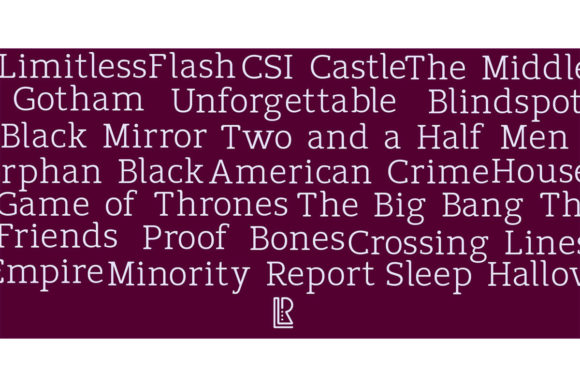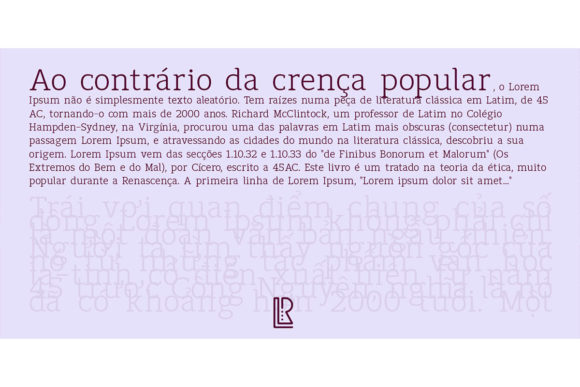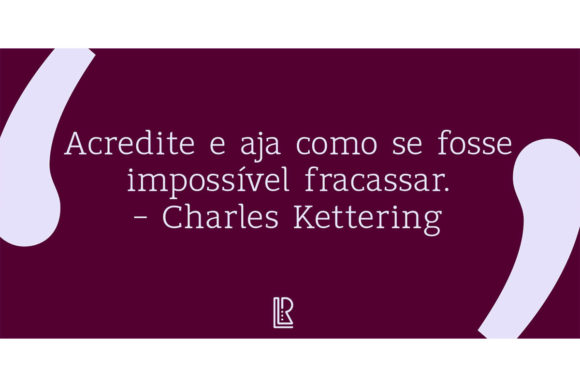
Thulu Font
THULU FONT SPECIMEN
“Thulu” is a versatile and adaptable slab serif font that brings a cool and contemporary aesthetic to a wide range of design projects. With its unique character and versatility, this font serves as a valuable asset in any designer’s toolkit, capable of enhancing and elevating various creative endeavors.
No matter the topic or theme, “Thulu” adds a touch of style and sophistication to every project it graces. Its cool and contemporary vibe makes it suitable for branding initiatives, logo designs, web content, print materials, and more, making it an excellent choice for designers seeking versatility and impact in their typographic choices.
“Thulu” seamlessly integrates into diverse design contexts, allowing it to enhance any creation with ease. Whether used in sleek corporate identities, captivating advertising campaigns, or engaging social media graphics, this font leaves a lasting impression, thanks to its distinct character and adaptability.
By incorporating “Thulu” into your font library, you gain access to a valuable resource that empowers creativity and enables you to express your ideas with confidence. Its adaptability ensures that it can meet the unique requirements of each project, while its cool and contemporary style adds a touch of flair and personality to your designs.
In summary, “Thulu” is more than just a font—it’s a versatile tool that enhances any creation with its cool and adaptable nature. Whether you’re working on branding, marketing, editorial, or any other design project, “Thulu” offers an opportunity to elevate your work and make a lasting impression with its unique style and versatility.